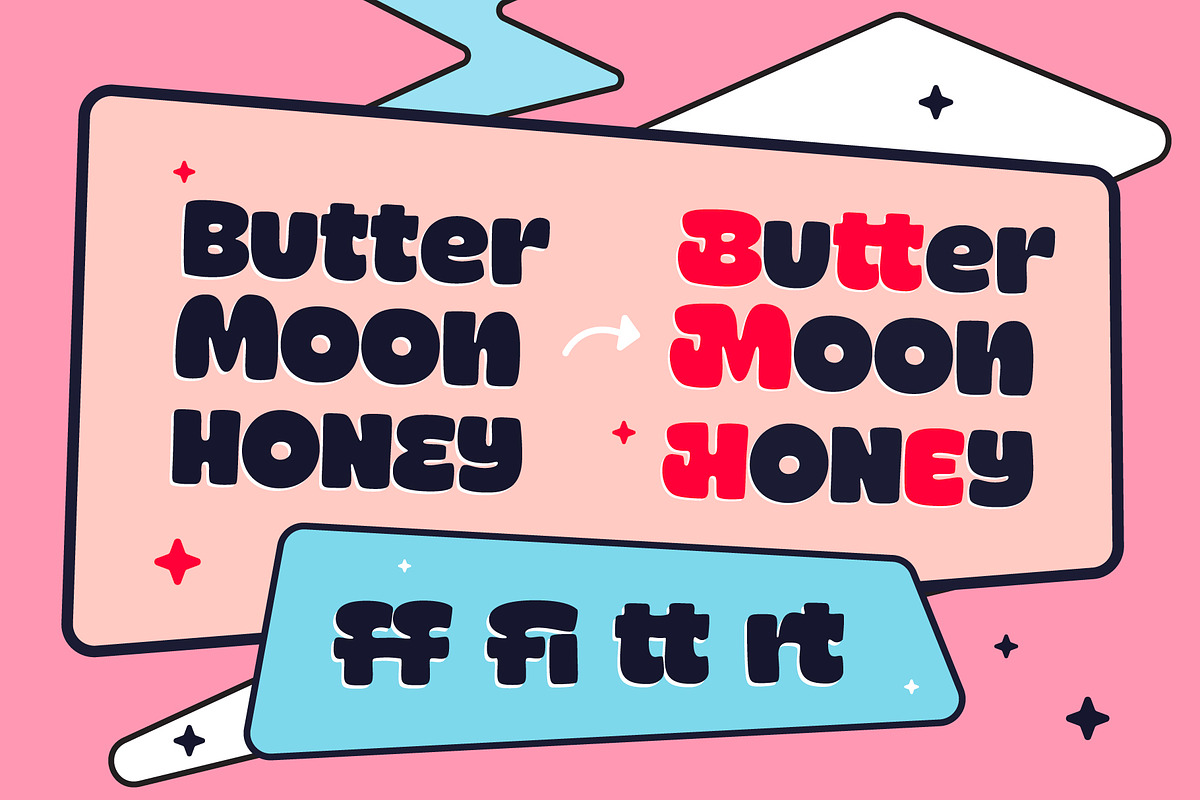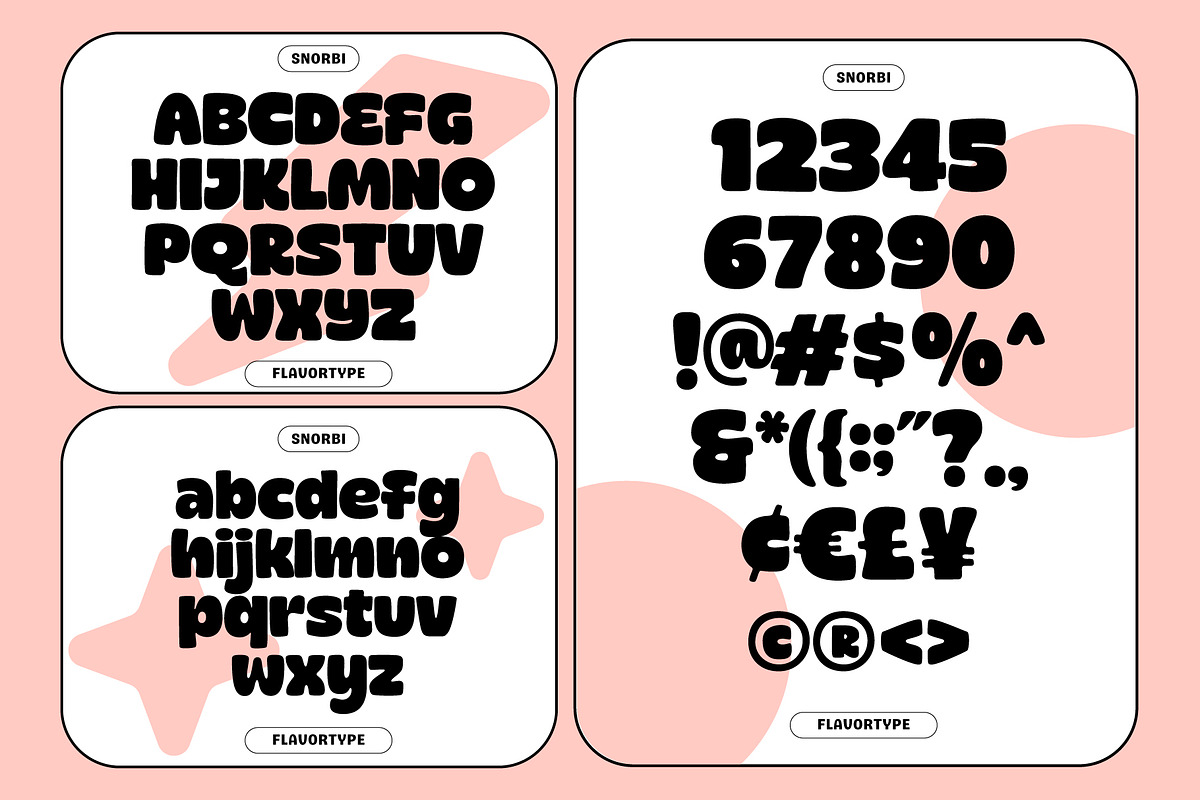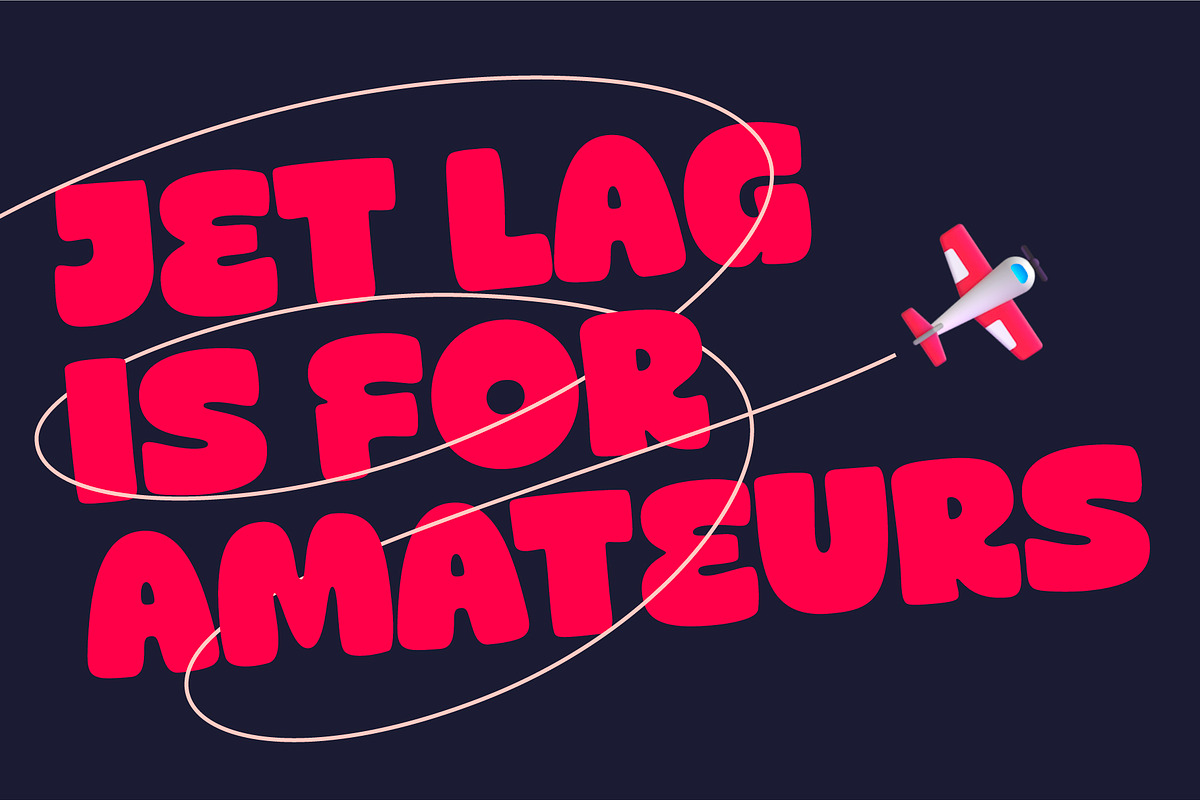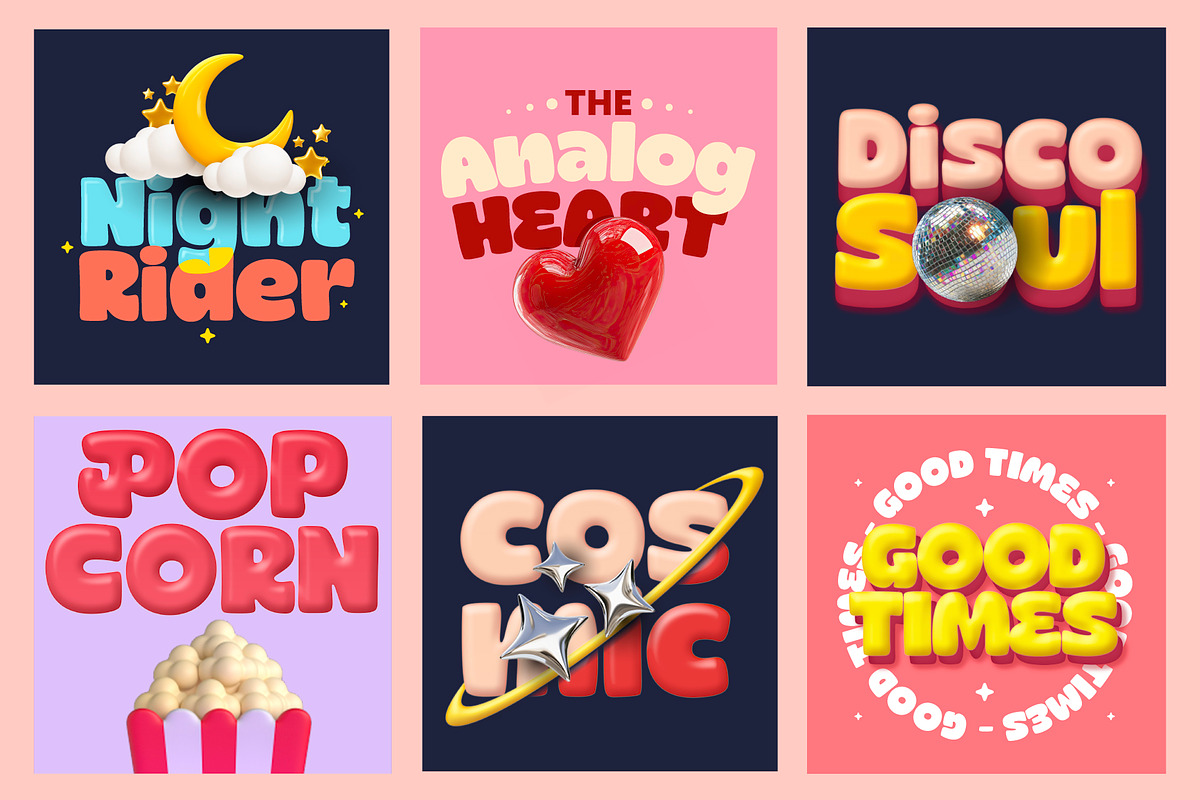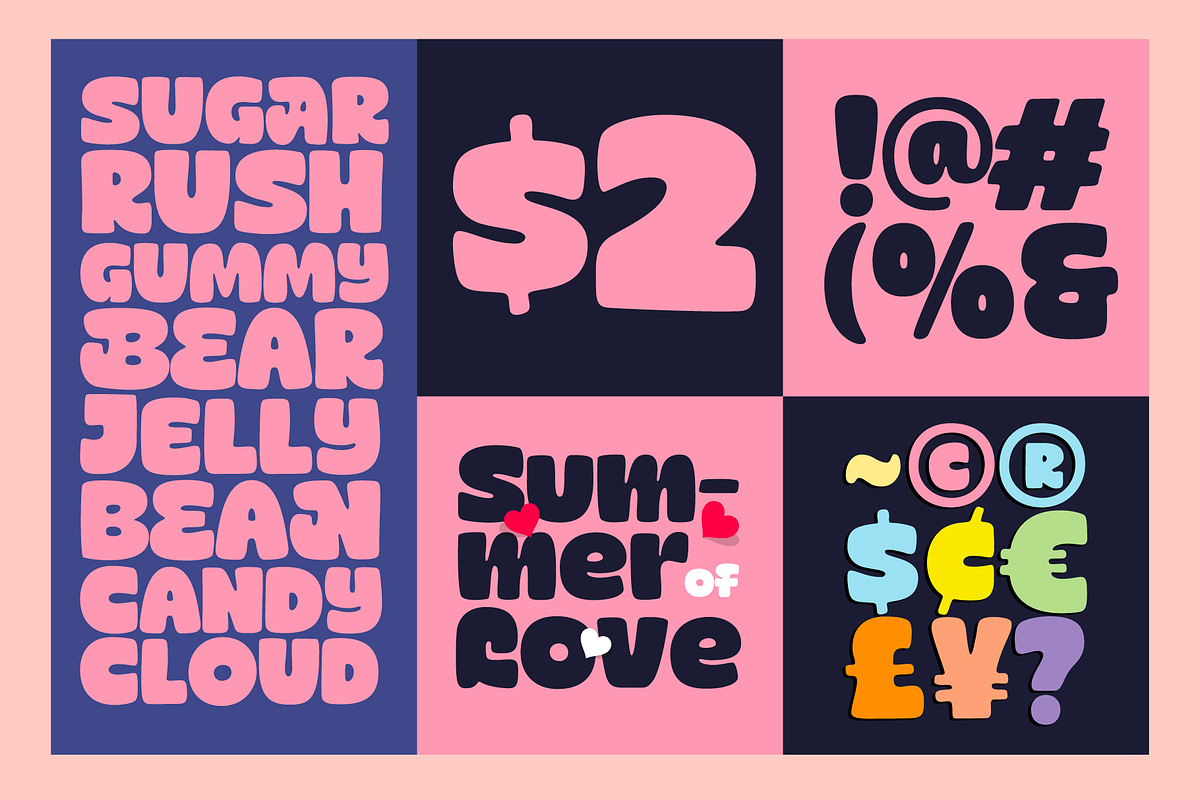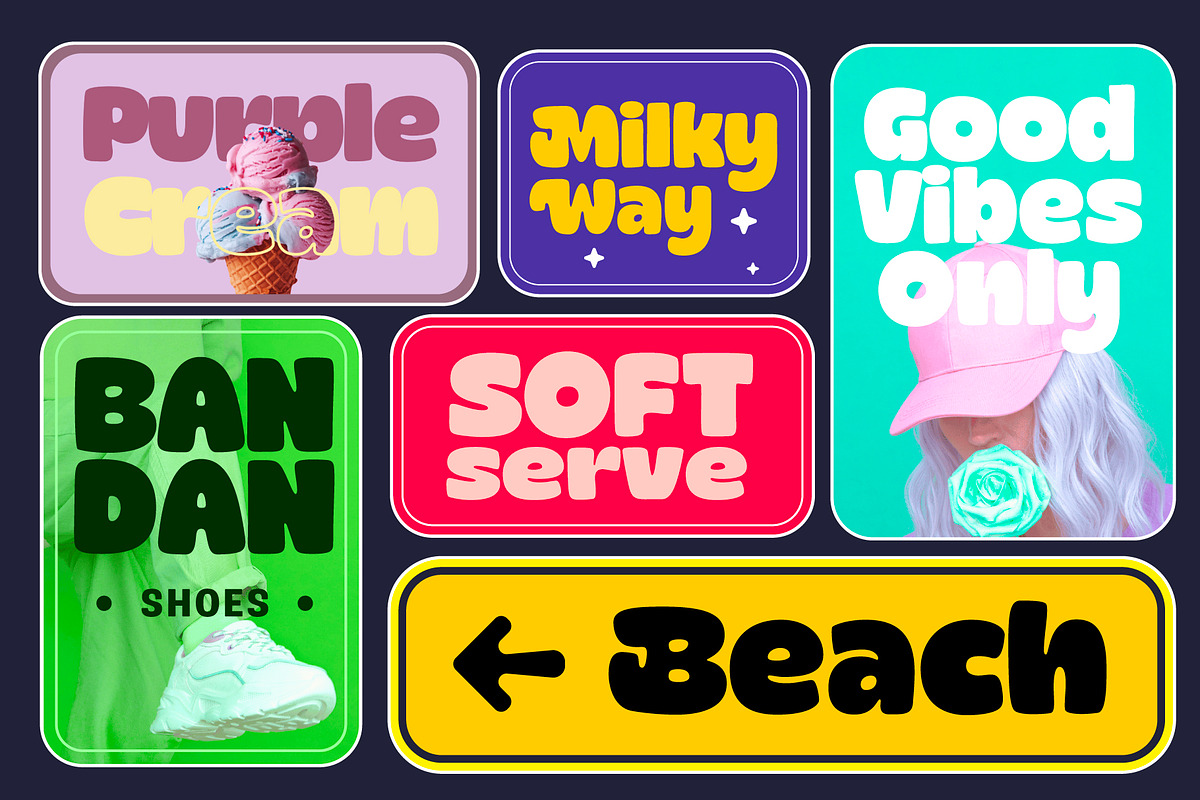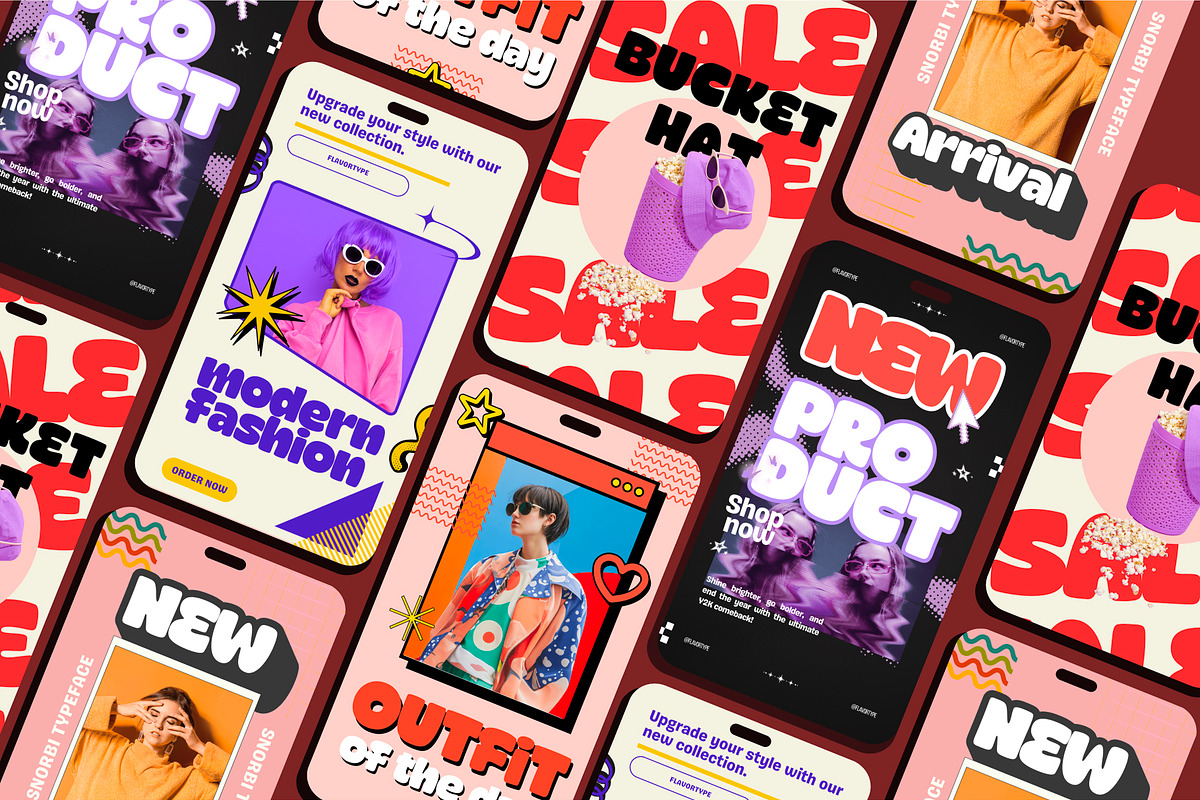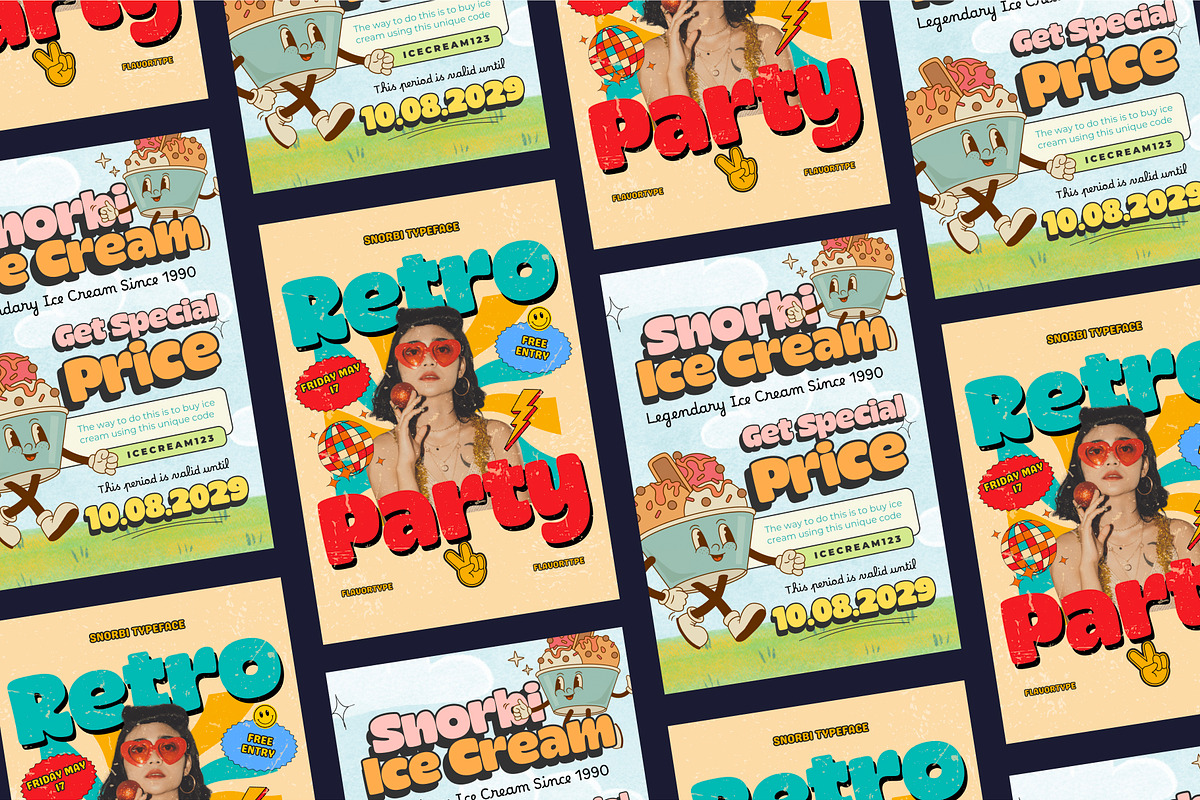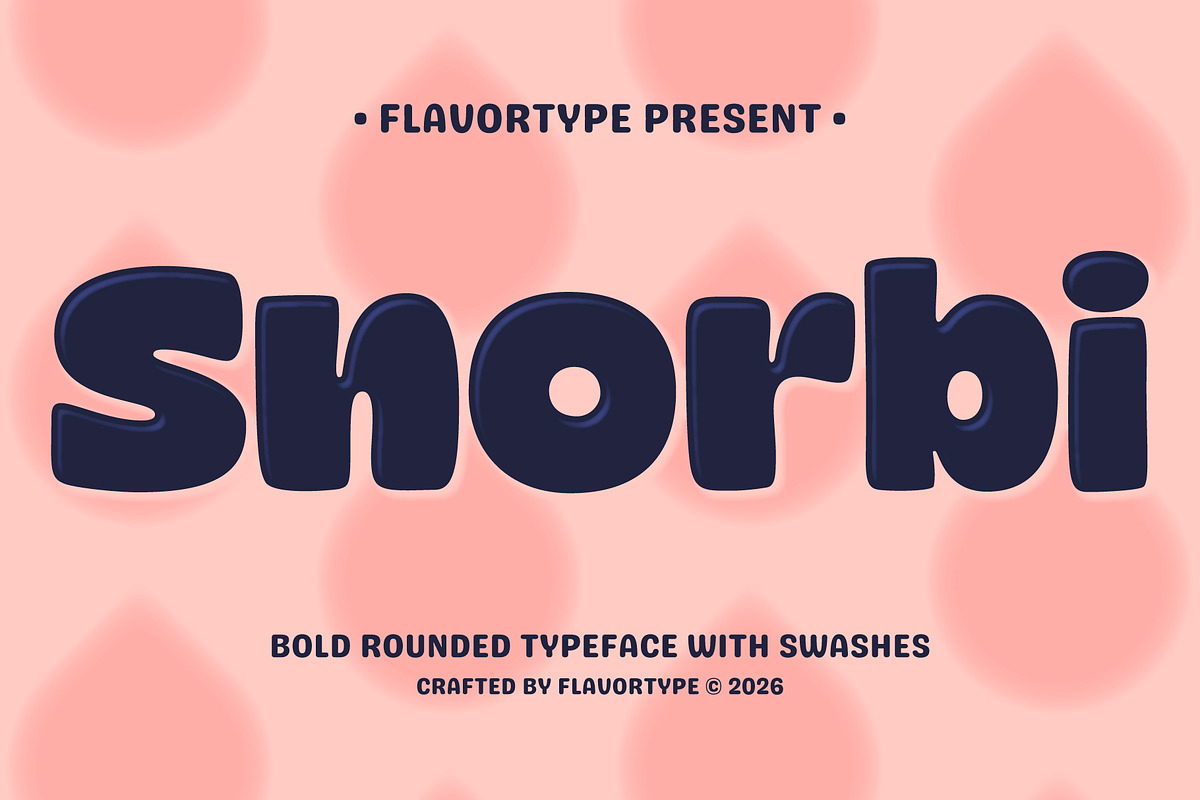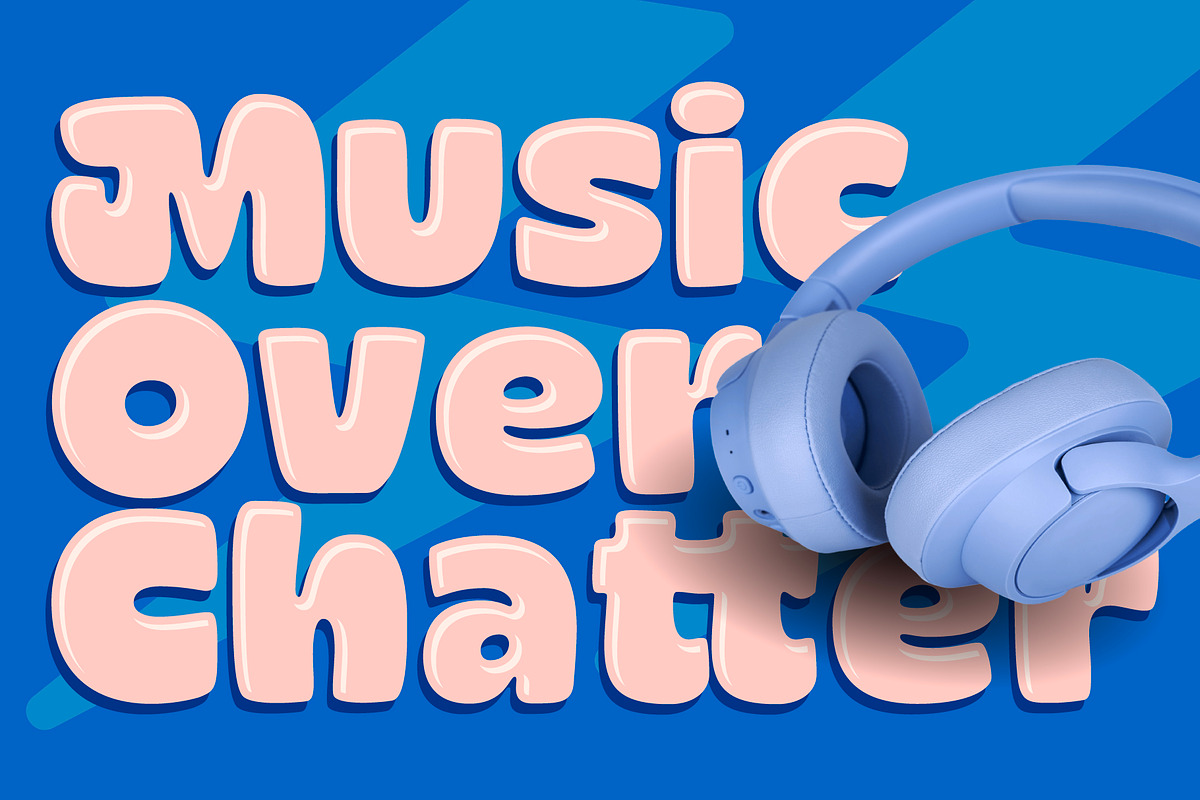
Snorbi
Snorbi is a bold rounded display font with a juicy, bubbly personality, perfect for designers who want their lettering to feel soft, sweet, and instantly eye‑catching. Its thick curves, playful swashes, and smooth outlines make it ideal for fun, food‑themed, and kid‑friendly projects that need a friendly punch of character.
The font includes uppercase and lowercase letters, numbers, punctuation, and fun alternates with swashy forms so you can mix and match styles in your layouts. Use it to design snack and dessert brands, kids’ products, event flyers, K‑pop or streetwear graphics, sticker packs, and YouTube or podcast covers that need maximum charm. Thanks to its bold weight and clean curves, Snorbi stays readable even at smaller headline sizes while still feeling soft and friendly.
- Snorbi Regular - lowercase included
- Snorbi All Caps - All caps only but added auto swashes on the first letter.